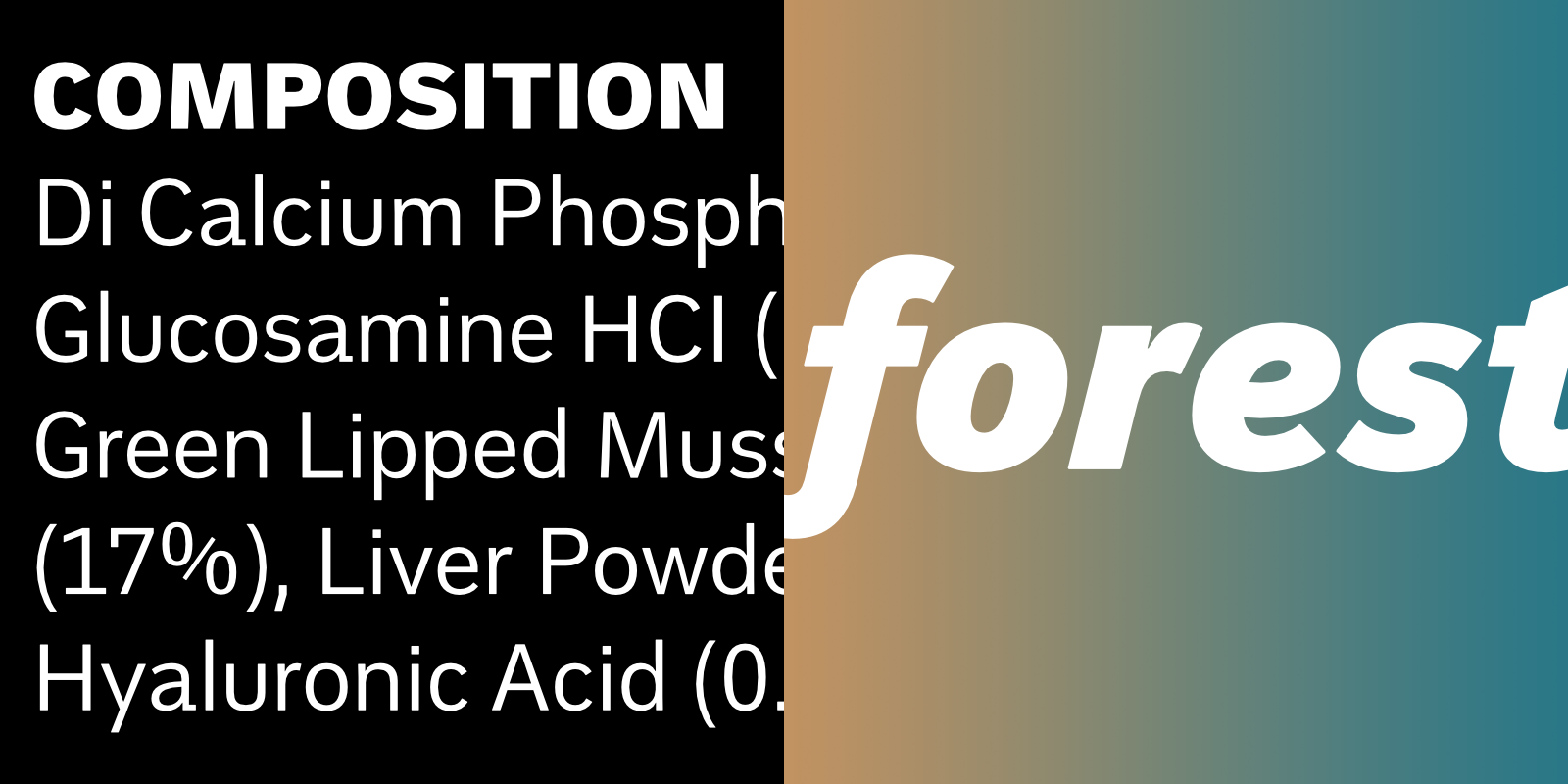
Trilogy Font Families Collection
Trilogy Font Families Collection is perfect for comprehensive brand identity systems, multi-platform publishing projects, complete corporate communications, versatile editorial design, extensive signage systems, complex web design hierarchies, professional presentation materials, diverse marketing campaigns, sophisticated typographic layouts, and comprehensive design solutions.
Trilogy Font Families Collection is exciting because it represents the ultimate typographic toolkit, combining three complementary font families that work harmoniously together to create unlimited design possibilities and comprehensive visual communication solutions. This collection brings typographic versatility and design completeness to any project, making it ideal for organizations and designers who want to create cohesive yet dynamic brand systems with the flexibility to adapt across multiple applications and communication channels. Its comprehensive character and systematic design create an atmosphere of professional sophistication that resonates with audiences appreciating thoughtful, well-coordinated design systems.
Trilogy Font Families Collection includes serif, sans-serif, and script variations across multiple weights from thin to black, each available in roman and italic styles with extensive character sets and coordinated ornaments, providing designers with the ultimate typographic flexibility for creating sophisticated hierarchical systems and comprehensive brand experiences.
This exceptional typographic system combines three distinct yet harmonious font families with contemporary design excellence, making Trilogy Font Families Collection Free Download the ultimate choice for complex projects requiring both variety and visual coherence. The collection's expertly coordinated letterforms feature unified design principles and complementary styling that ensure seamless integration while offering maximum creative flexibility.
Whether you're developing comprehensive corporate identity, designing complex publication systems, or creating multi-platform brand communications, Trilogy Font Families Collection delivers unmatched typographic versatility and systematic sophistication. The collection excels across all applications, from intimate business cards to large-scale environmental graphics where typographic harmony and design flexibility create outstanding brand consistency.
Professional designers choose Trilogy Font Families Collection for its ability to provide complete typographic solutions while maintaining visual harmony across diverse applications and communication needs. The collection's systematic character makes it particularly effective for design agencies, publishing houses, and organizations requiring comprehensive brand systems.
Each font family demonstrates masterful coordination and design excellence, featuring harmonious construction and systematic proportions that create typography as complete and reliable as the most successful brand systems and comprehensive design solutions.